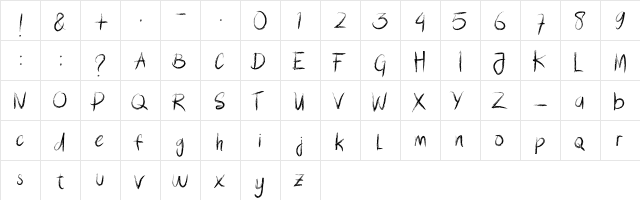
Lousiana Brush Regular
| Foundry | Uloel Design |
| Designer | Ulul Fahmi |
Design Context for Lousiana Brush Typeface
Lousiana Brush flows with the natural rhythm of handwritten lettering, making it ideal for designs that call for warmth and personal expression.
Font Pairing: Combine Lousiana Brush with a simple geometric sans for maximum contrast — the tension between flowing curves and clean structure is a classic typographic pairing.
Pro Tip: Pair Lousiana Brush with a clean sans-serif for supporting text. The contrast between fluid script and geometric structure creates an elegant typographic hierarchy.